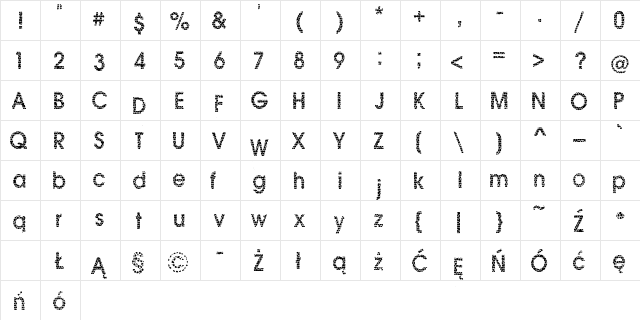
Ginger Snake Regular Font Preview
Ginger Snake Regular
Ginger Snake Regular Font Details
Design Context for Ginger Snake Typeface
Ginger Snake takes a measured approach to typography — its balanced proportions and neutral character make it a reliable workhorse for both digital and print work.